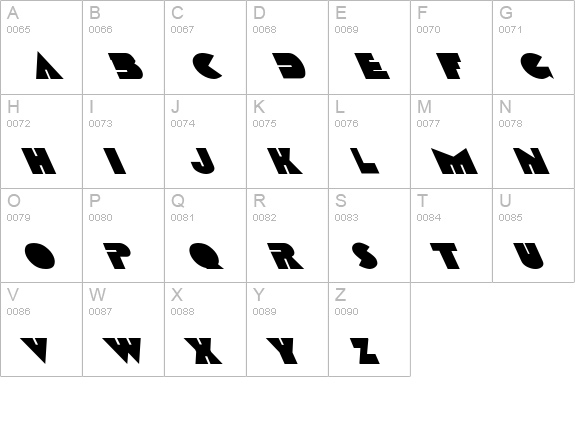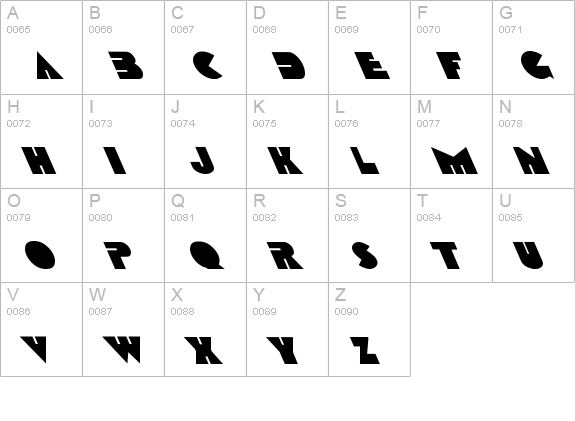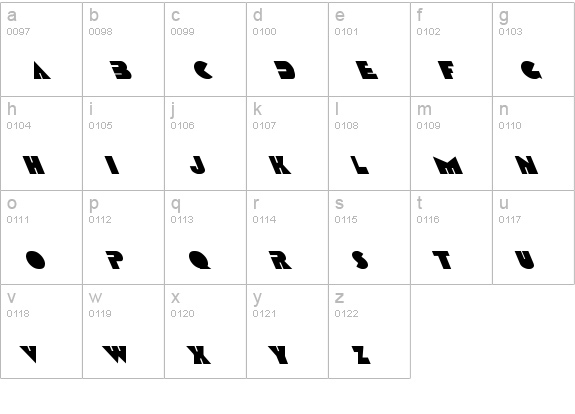
Devendra Lefty font is a unique and artistic typeface that is perfect for making a bold statement in your designs. With its quirky and playful style, this font will add a touch of creativity to any project. The irregular slant and jagged edges give Devendra Lefty a distinctive look that is sure to capture attention. Best of all, Devendra Lefty is available for free download at FontsMarket.com. Whether you're working on a poster, logo, or any other design project, this font will bring a fun and dynamic element to your work. Embrace the free-spirited nature of Devendra Lefty and let your creativity shine!